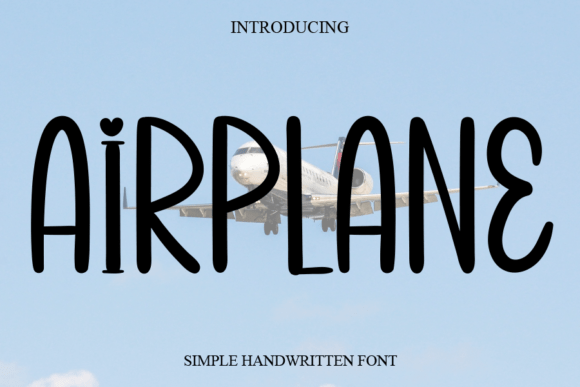
The Airplane Font: A Simple yet Versatile Handwritten Delight
I’ll never forget the time I was working on a project for a client’s greeting card. I had all the design elements in place, but something was missing – the perfect font. I scoured the internet, tried out countless options, but nothing seemed quite right. That was until I stumbled upon the Airplane font. With its simple, handwritten charm, it added a natural feel to the card that my client loved. In this article, I’ll share with you why I’m obsessed with the Airplane font, its features, and how to make the most of it in your designs.
An Honest Review of Airplane Font
• ✨ Simple and elegant handwritten style
• ✅ Highly versatile for various design applications
• ✅ Easy to read and understand
• ✅ Works well for both headlines and body text
While the Airplane font is amazing, there are a few things to keep in mind:
• ⚠️ Limited character set compared to some other fonts
• 🤔 May not be suitable for very formal or corporate designs
One of the best things about the Airplane font is its support for OpenType features and glyphs. These features allow you to customize your text and add a personal touch to your designs. Here are a few tips:
• Use stylistic alternates to create a more playful or whimsical feel
• Experiment with ligatures to add a touch of elegance
• Don’t be afraid to try out different glyphs and swashes to add visual interest
The Story Behind Airplane Font
The Airplane font was designed with simplicity and versatility in mind. Its creator wanted to craft a font that would be easy to read and understand, yet still have a personal touch. The result is a beautiful, handwritten font that’s perfect for a wide range of design applications.
Q: Can I use Airplane font for my social media graphics?
A: Yes! Airplane font is perfect for social media graphics. Its simple, yet elegant design makes it easy to read and understand, even on smaller screens.